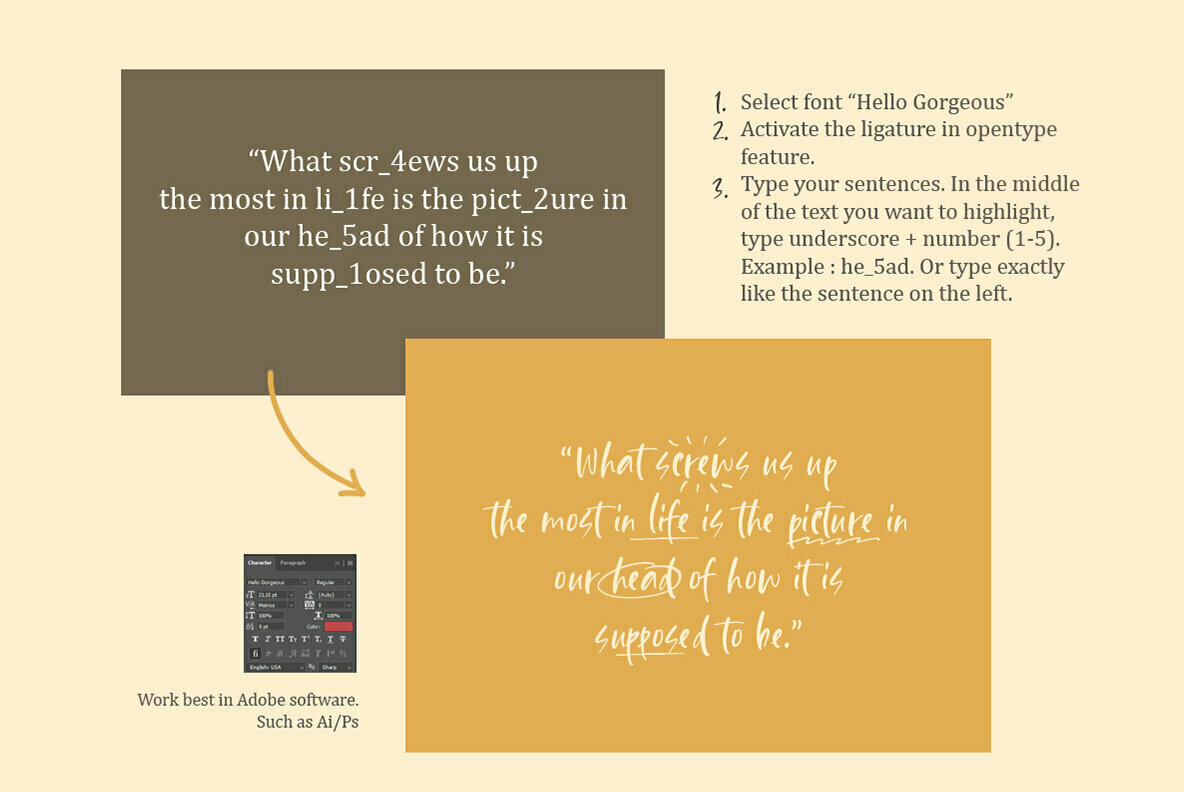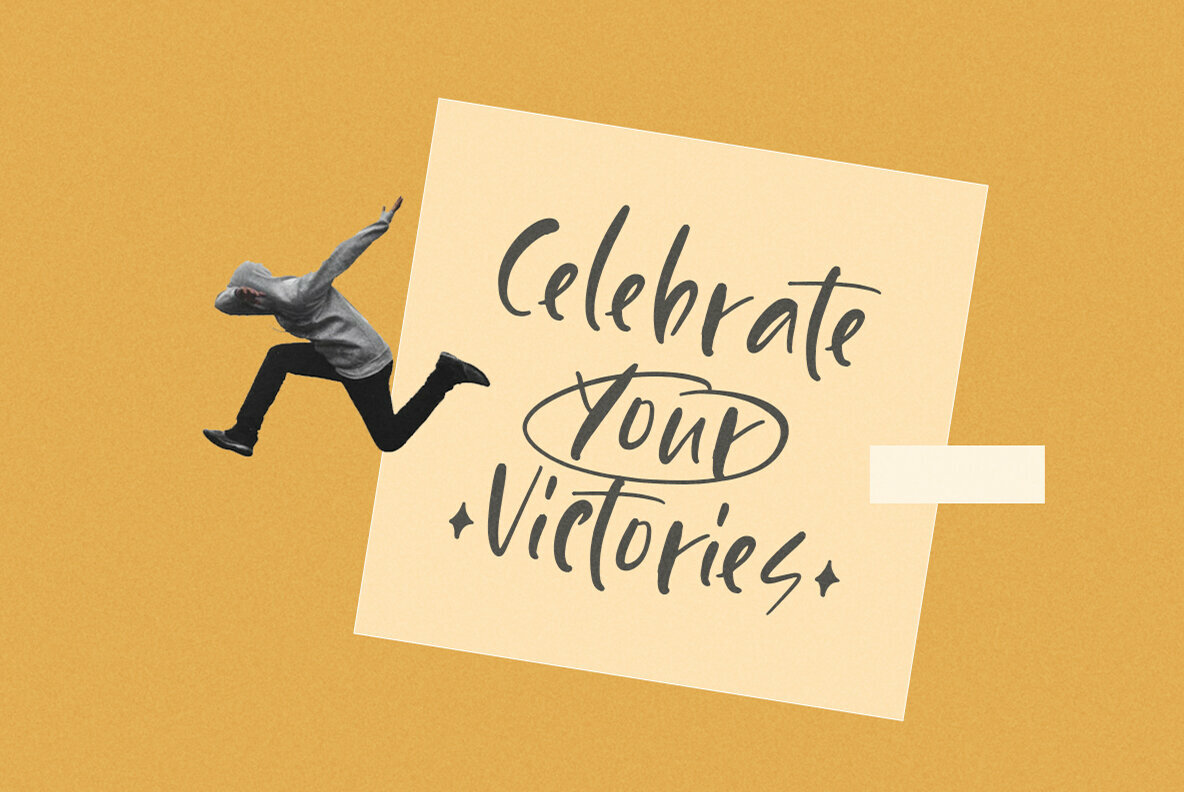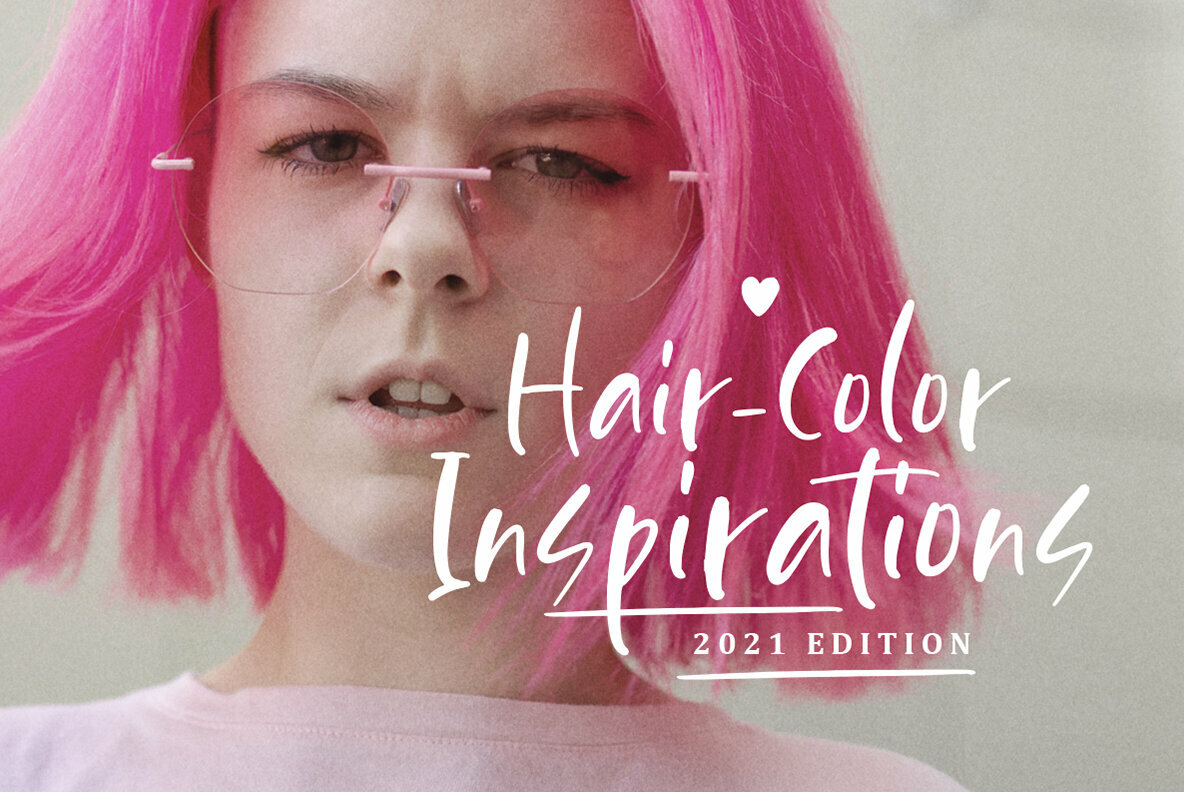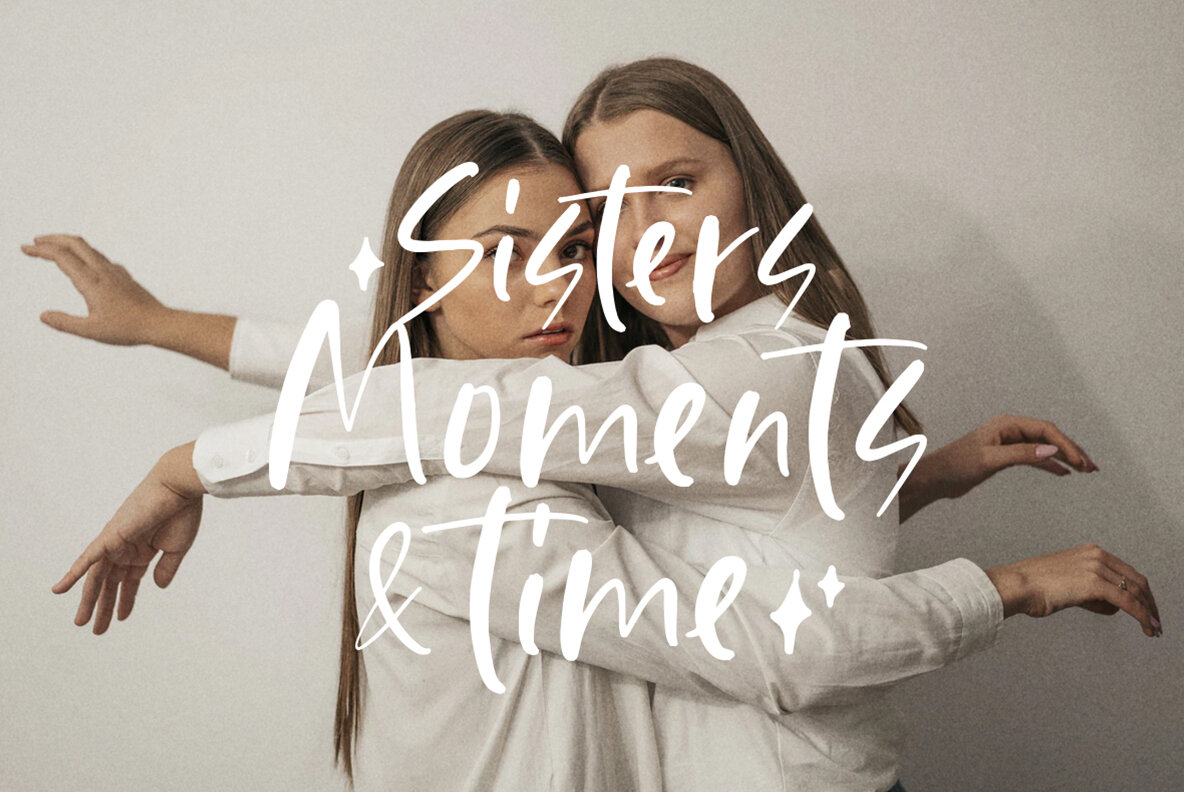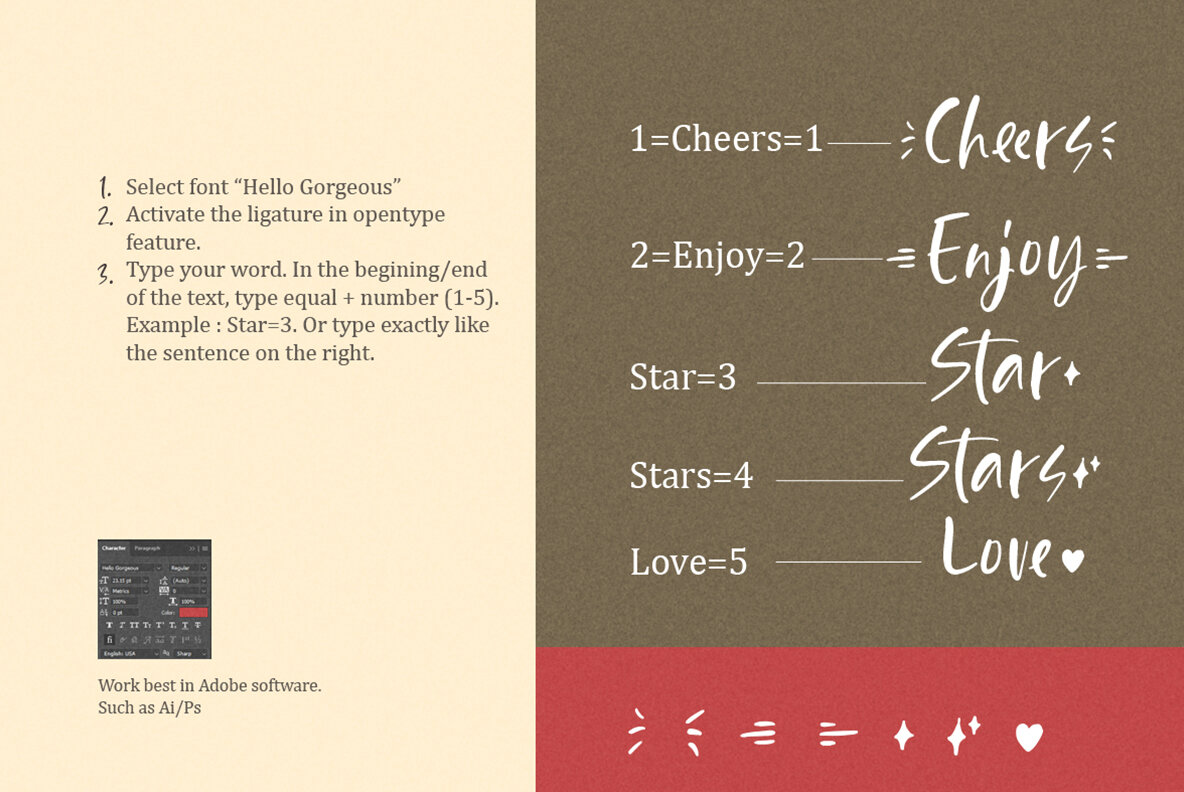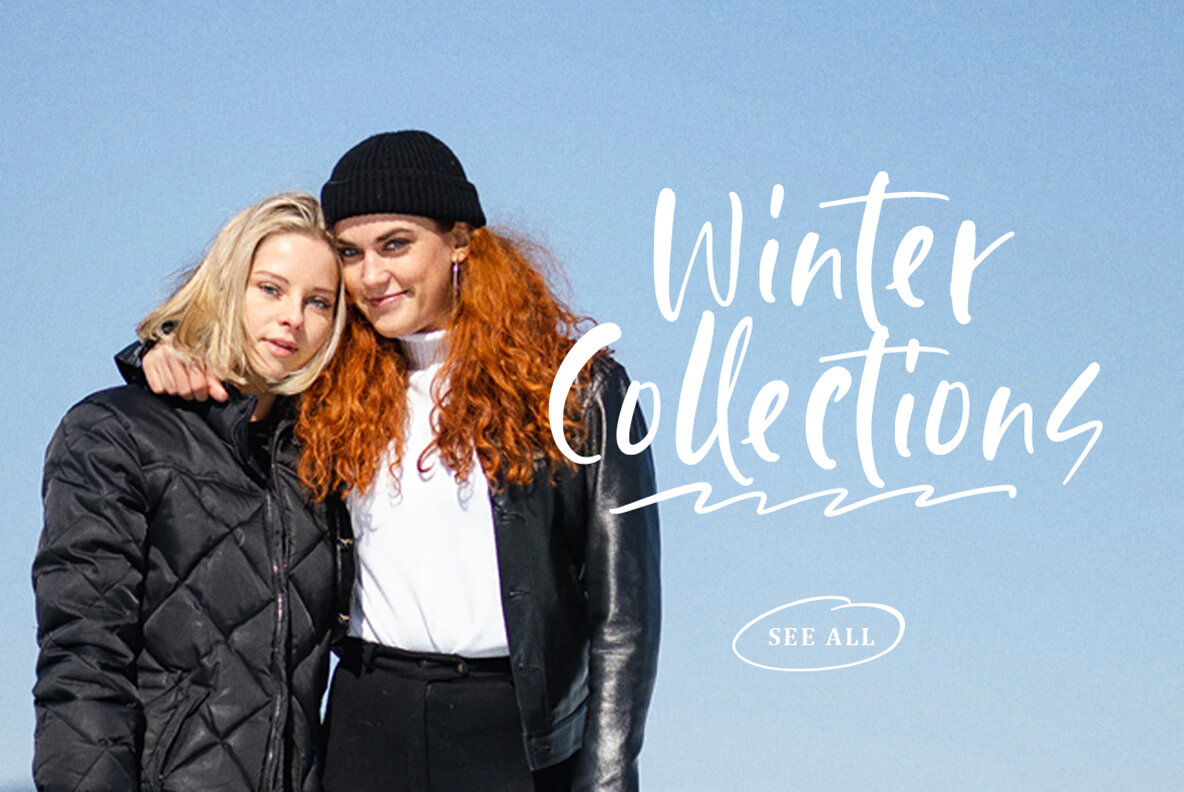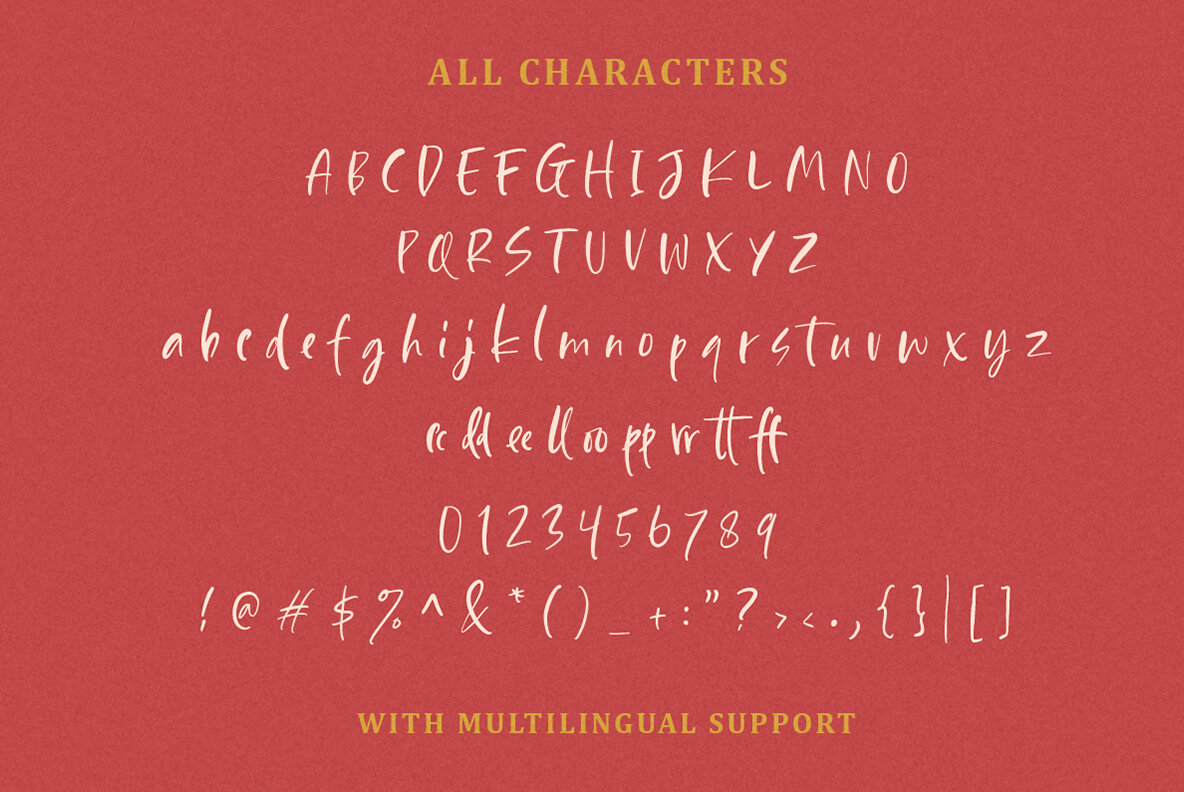
Hello Gorgeous Font
Hello Gorgeous Regular
The essence of charm and personality, Hello Gorgeous brings a touch of whimsy to your design projects with its stylish handwritten flair. Designed to adapt to a multitude of languages, this font features both uppercase and lowercase characters, along with symbols and essential ligatures, ensuring your text flows naturally. Perfectly suited for logo branding and fashion design, Hello Gorgeous thrives in diverse settings such as wedding invitations and handwritten quotes. The font invites creativity, allowing you to enhance your text with delightful extras such as underlines, stars, and hearts. Additionally, it is already PUA encoded, promising seamless accessibility.Hello Gorgeous: A Playful Handwritten Typeface